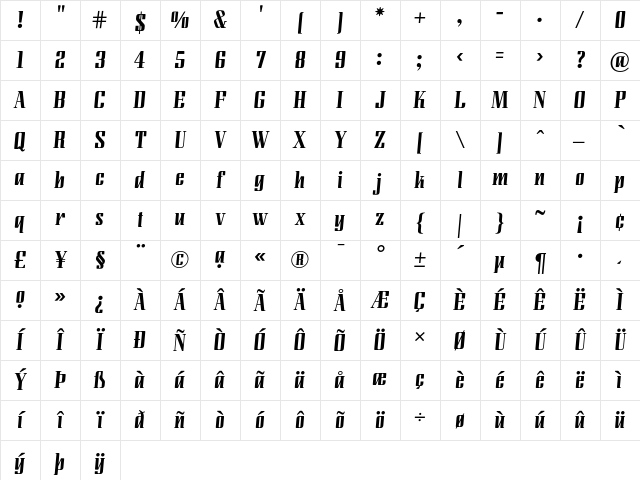
LundaModern Regular Free Font
LundaModern Regular
Design Context for LundaModern
LundaModern is a composed and adaptable typeface that performs quietly and consistently across a wide range of design contexts.